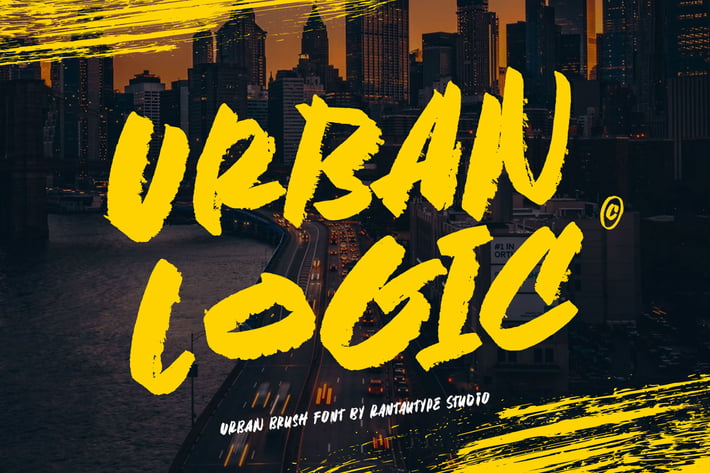
Urban Logic Street Brush Typeface
Urban logic is a urban street brush font that was created using real paint brush strokes. Urban logic is perfect realistic brush visual type to make design project more attractive and stand out.
Urban logic is a perfect choice for any creative endeavor, chic, lifestyle design such as logos, advertisements, watermark on photography, stationery, branding project, display and magazine, invitation, corporate brand, product design, label, business project and many other project need brush taste.
Ligature and alternate